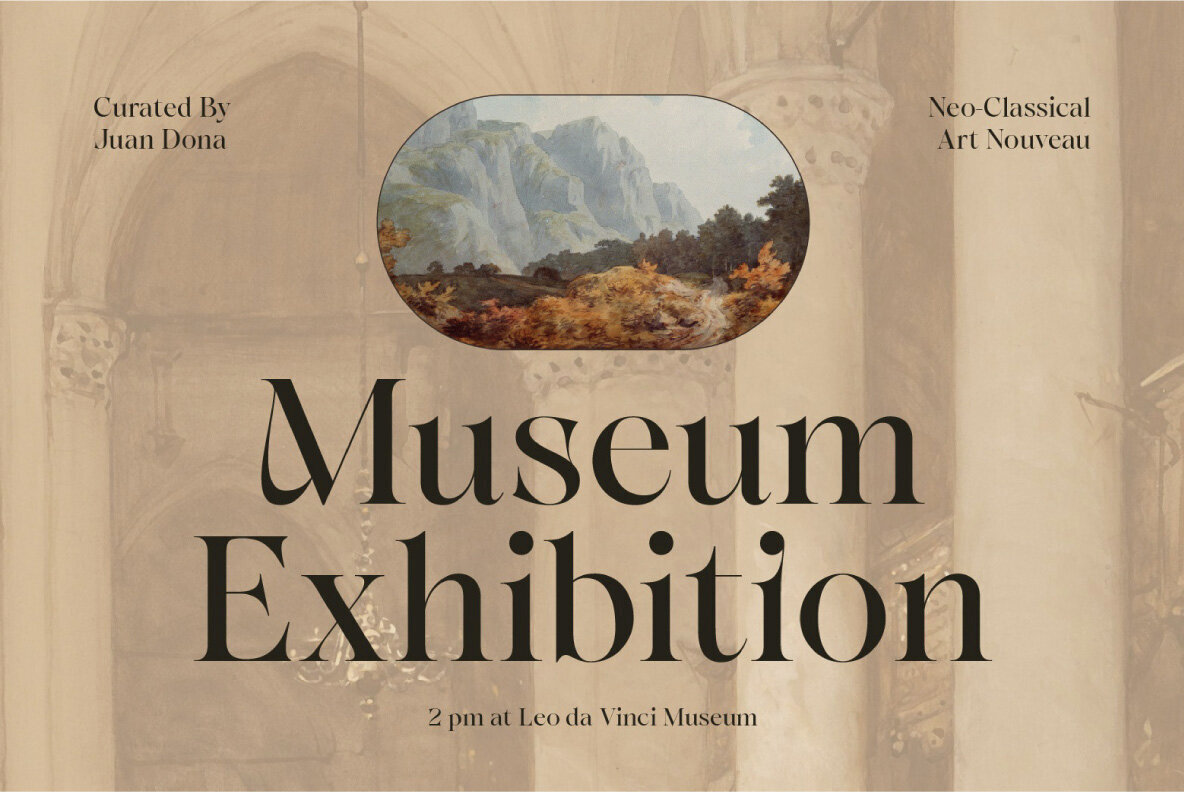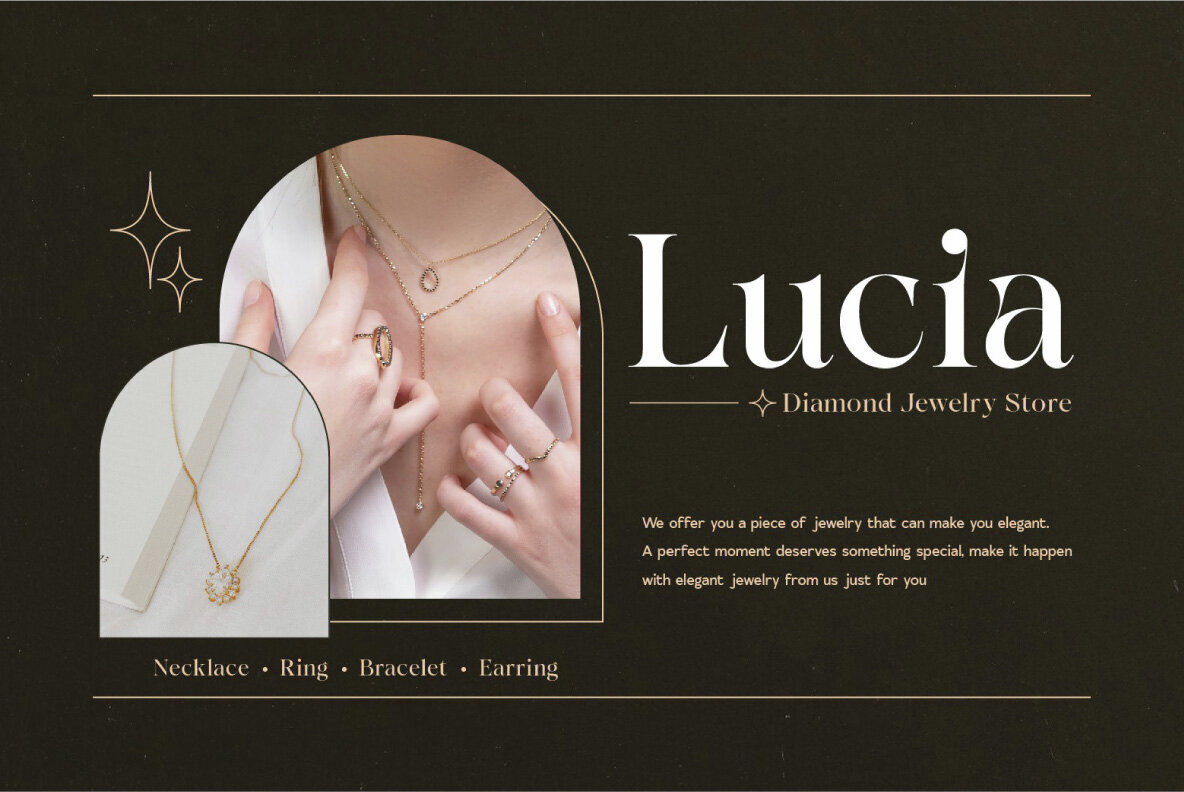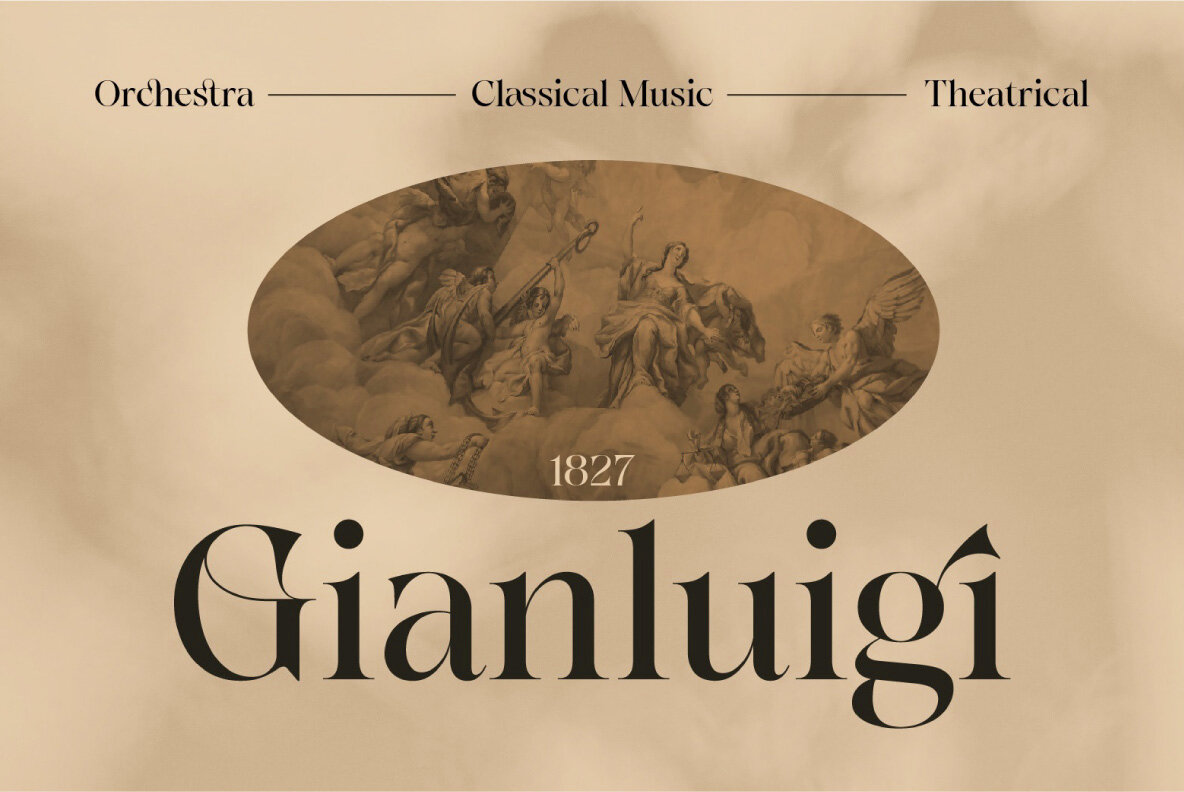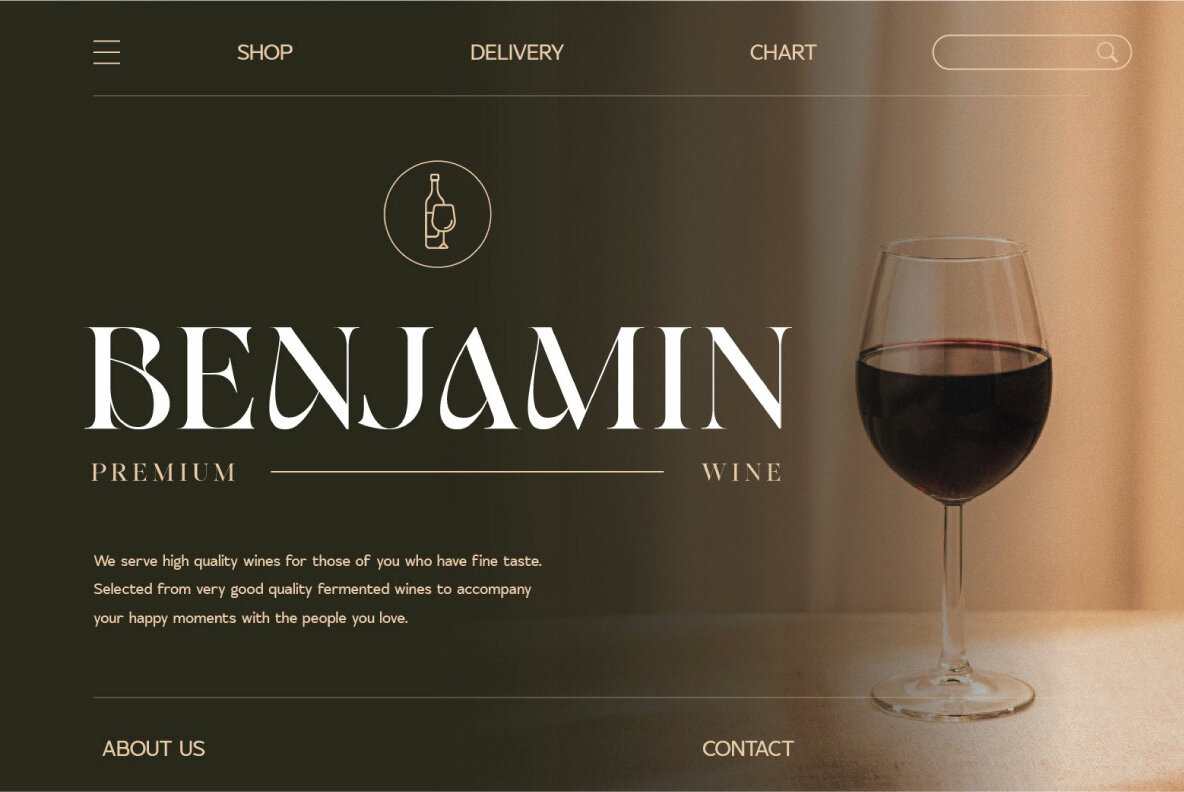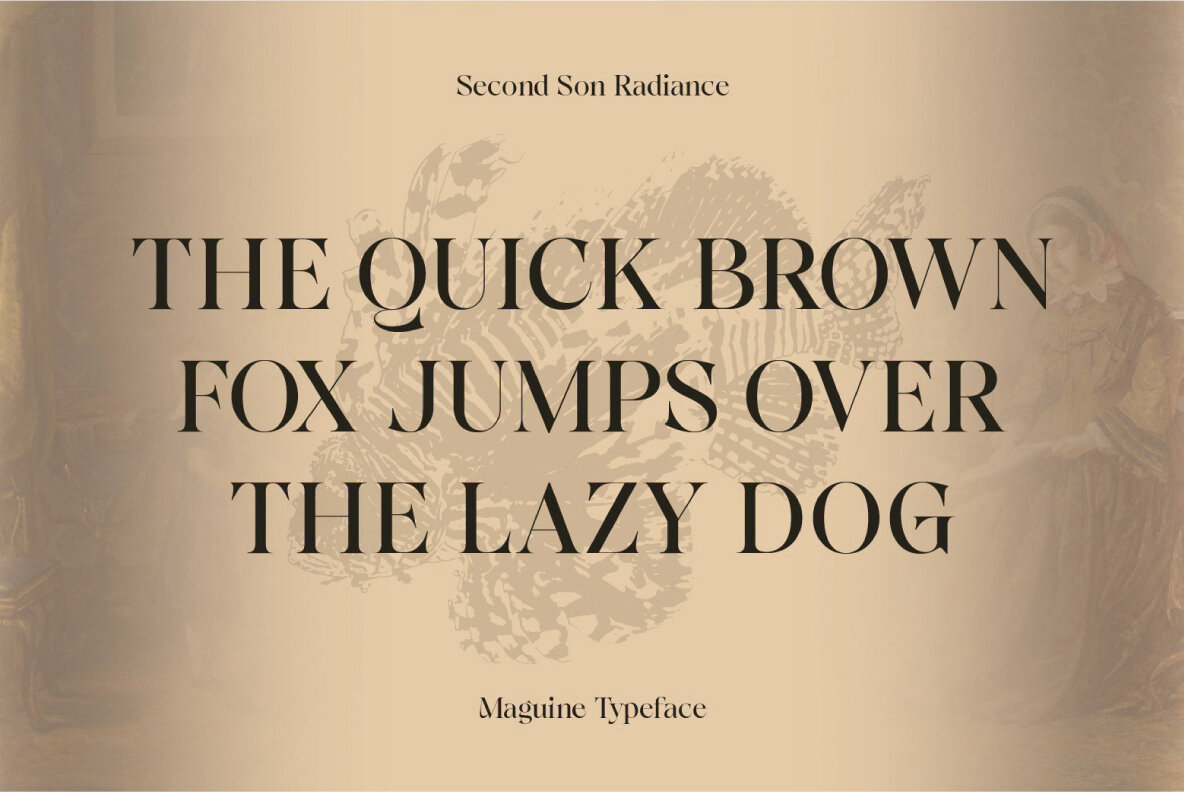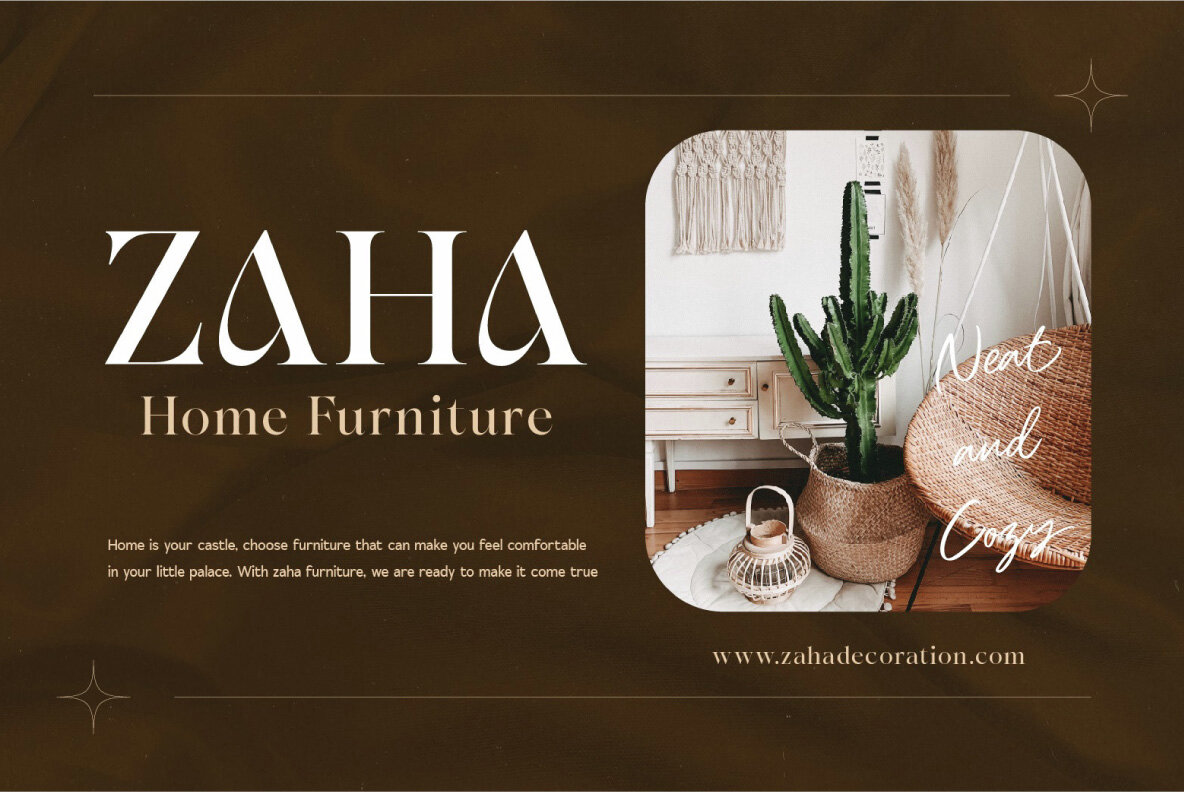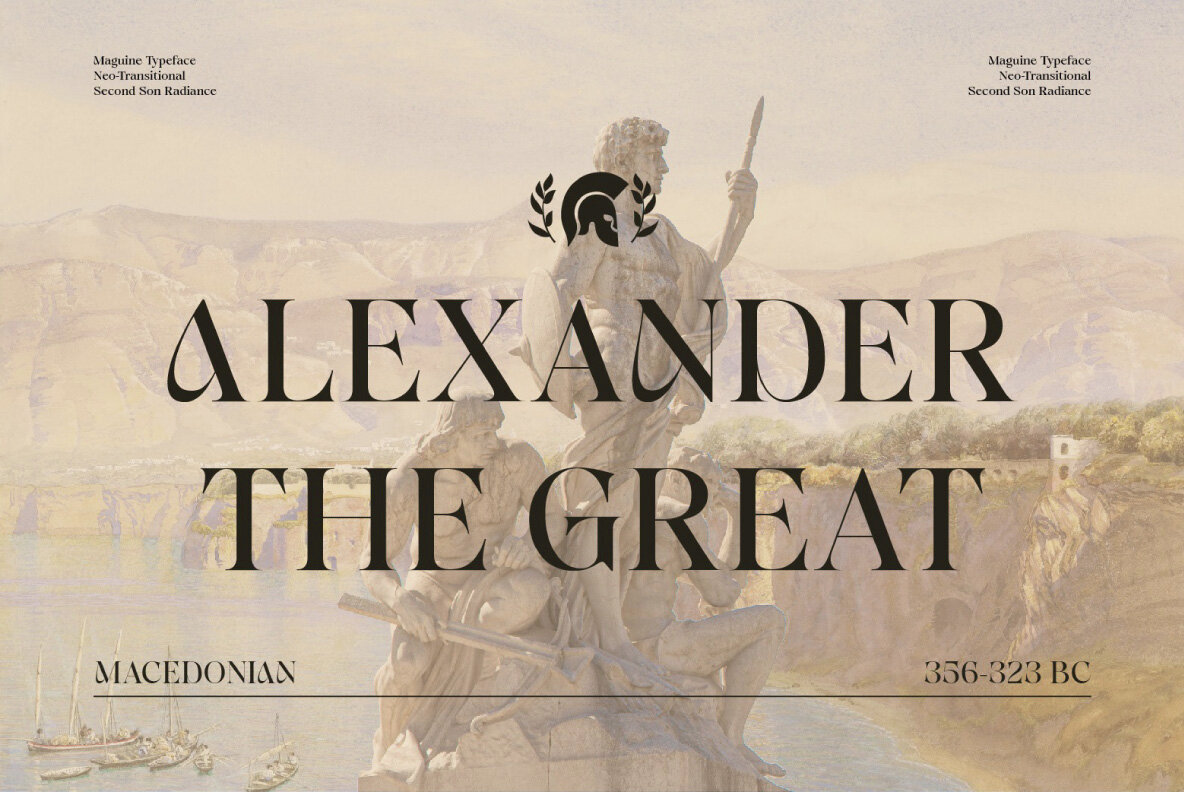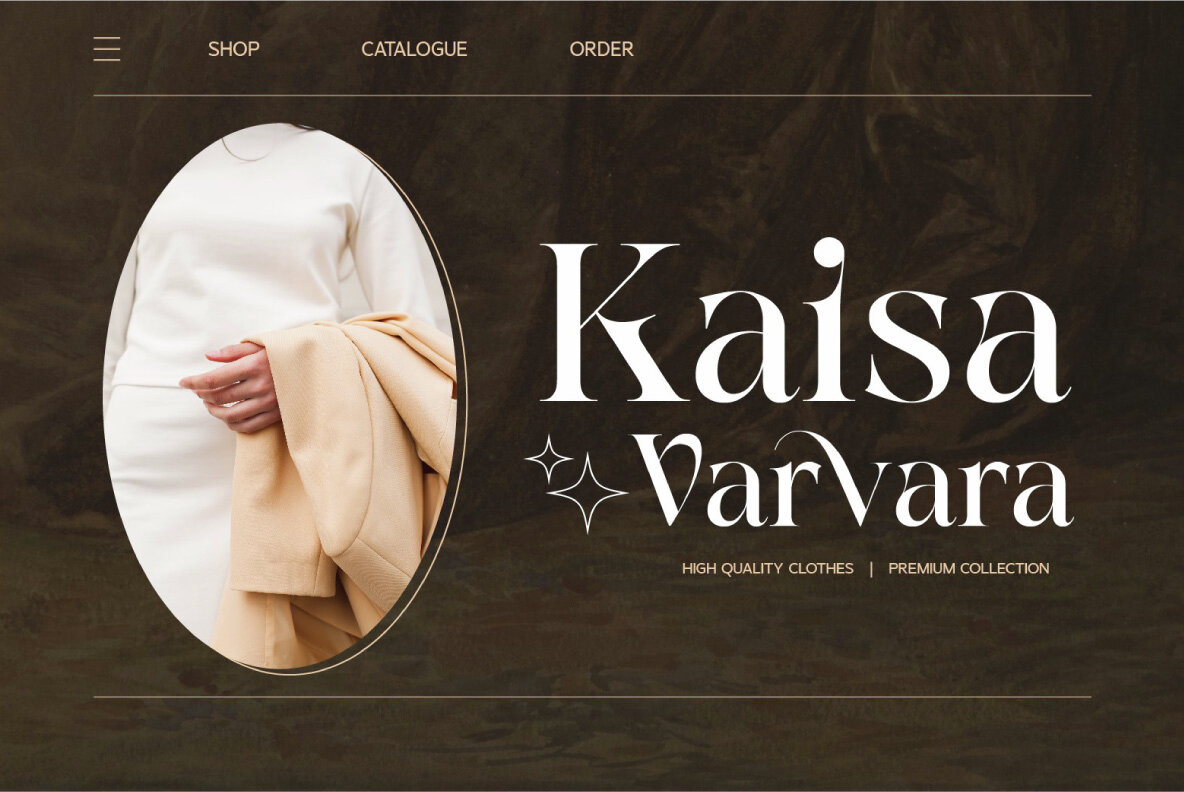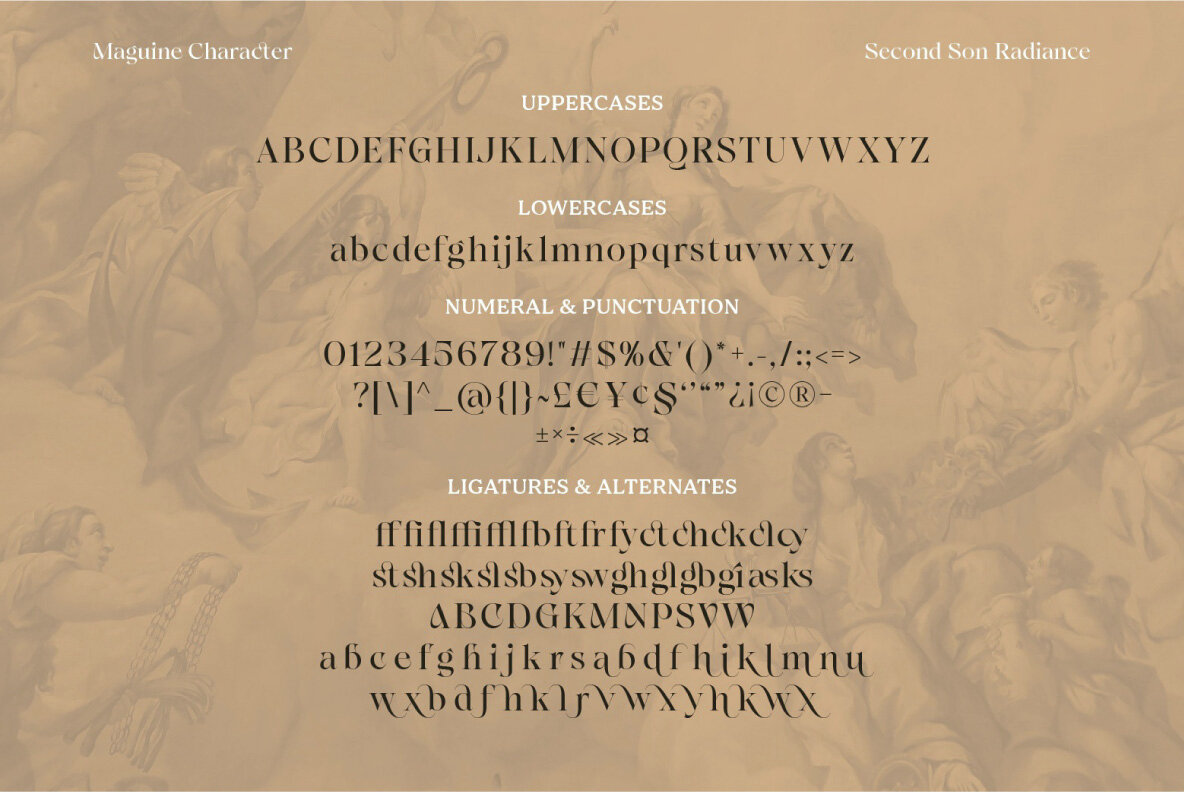
SS Maguine Font
Maguine Regular
Maguine is a modern serif font that combines elegance with contemporary charm. Designed to enhance a variety of creative projects, Maguine includes alternate characters and ligatures, allowing for versatile typography design. This font is ideal for luxury logos, branding projects, sophisticated editorial layouts, fashion promotions, and artistic galleries. It also suits boutique branding, stationery, blogs, advertising, invitations, art quotes, home decor, book titles, and special event materials.
Maguine offers a comprehensive character set, featuring basic Latin A-Z and a-z, numbers, punctuation, and OpenType functionalities like ligatures and alternates. It is crafted with PUA encoding and supports multiple languages, making it a versatile tool for designers seeking a stylish yet functional font. Whether for a high-end magazine or a historical architecture project, Maguine ensures your typography stands out with grace and sophistication.